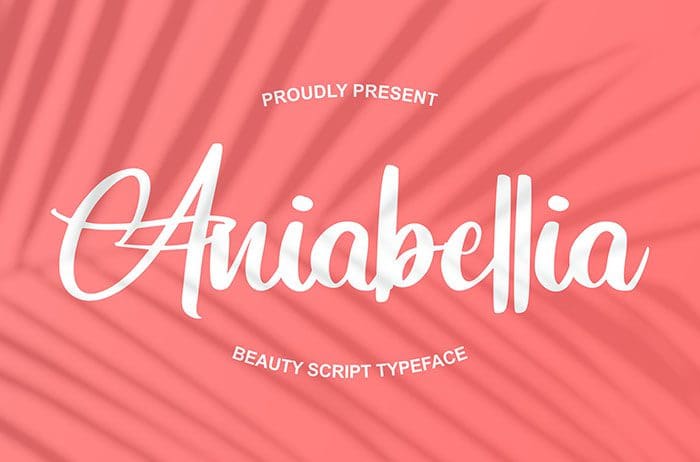
Aniabellia Script Font
Aniabellia Script Font is equally charming and unique. It features smoothly balances letters that will add a friendly feel in an instant. Thanks to Vunira Studio for sharing this font! Take a look at this portfolio for more of his stunning fonts.